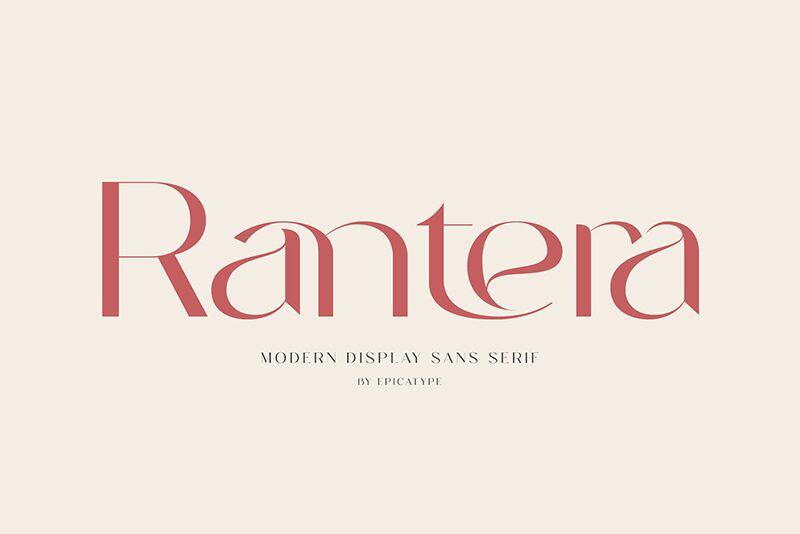
Rantera, a modern sans serif font designed by Epicatype, is perfect for adding a wide and light touch to any project. It's great for creating logos, posters and web designs that demand an eye-catching yet minimalistic approach.
Rantera